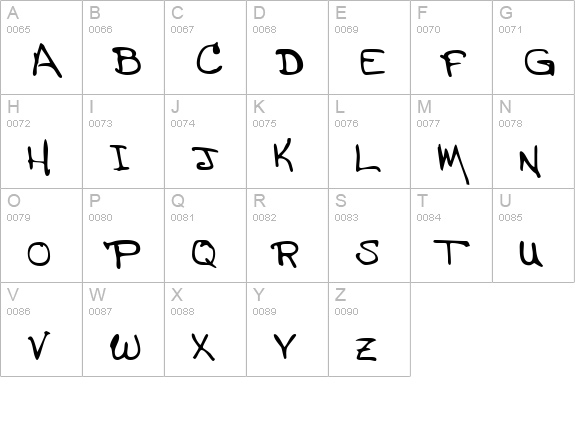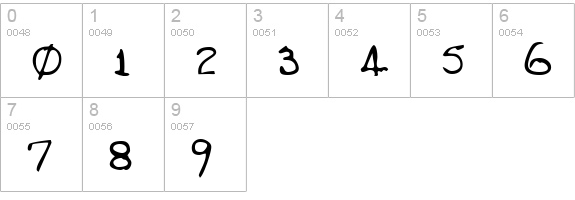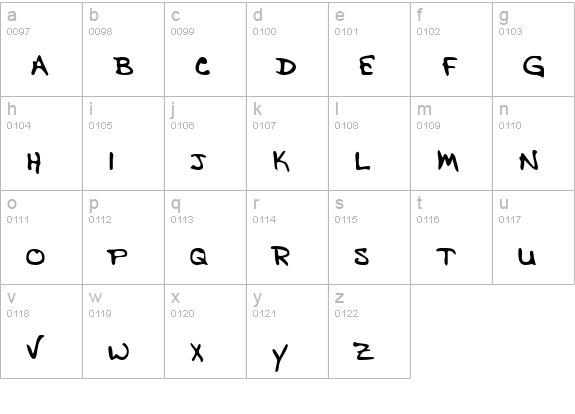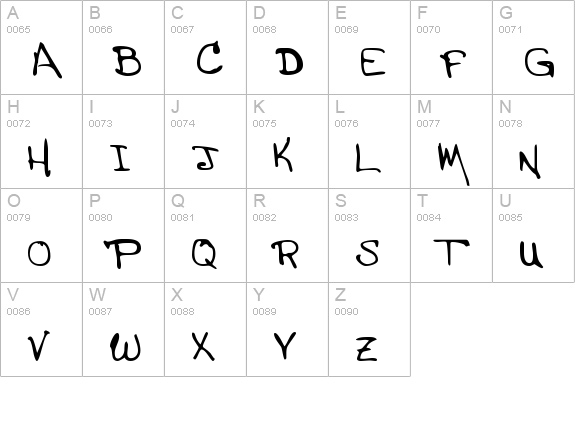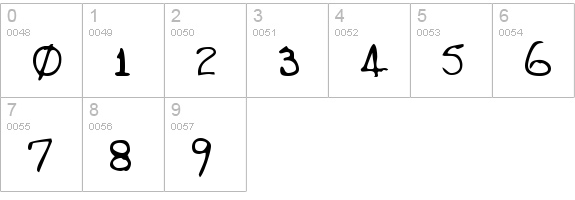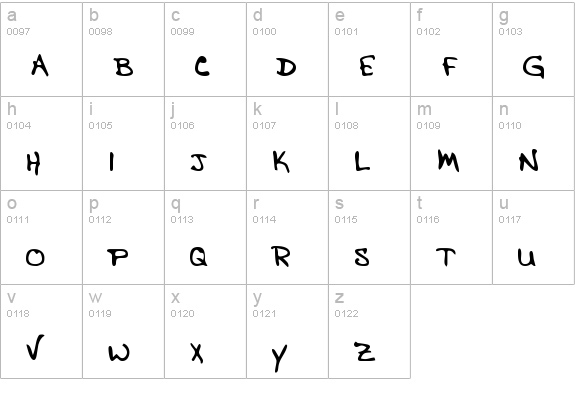
JasonsHand Regular Font Details
JasonsHand Regular is the standard, neutral variant in the JasonsHand typeface family \xE2\x80\x94 well suited to general body text, paragraphs, and standard typographic work.
JasonsHand Regular font is a charming and versatile typeface that brings a touch of hand-drawn elegance to your designs. With its smooth lines and casual yet polished appearance, this font is perfect for adding a personal and friendly feel to any project. Whether you're creating invitations, posters, or branding materials, JasonsHand Regular is sure to make your text stand out. Best of all, JasonsHand Regular is completely free to download at FontsMarket.com, making it accessible to anyone looking to add a unique touch to their creations. Don't miss out on the opportunity to enhance your designs with this beautiful and expressive font. Download JasonsHand Regular today and let your creativity shine!